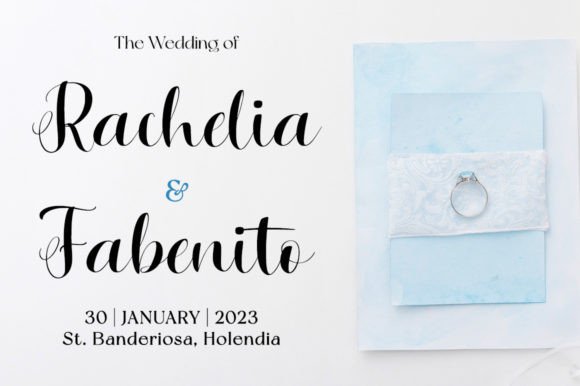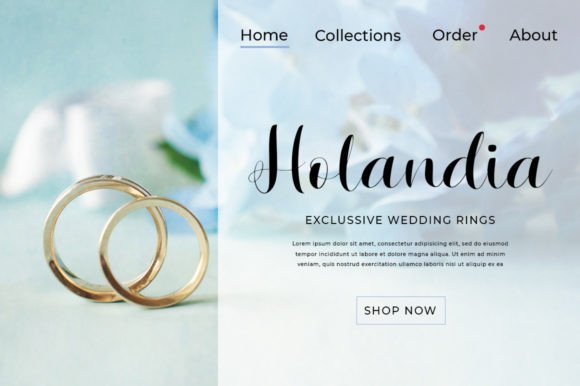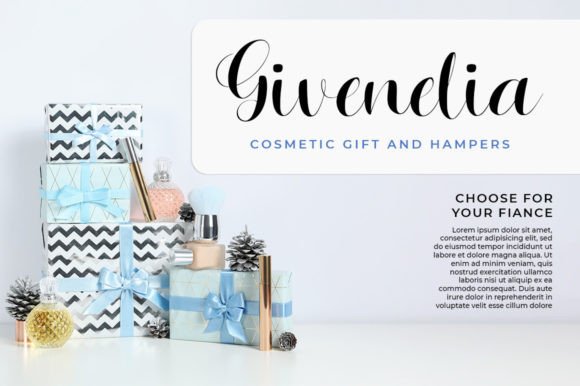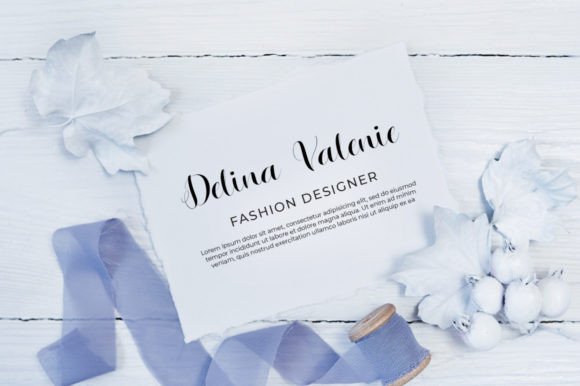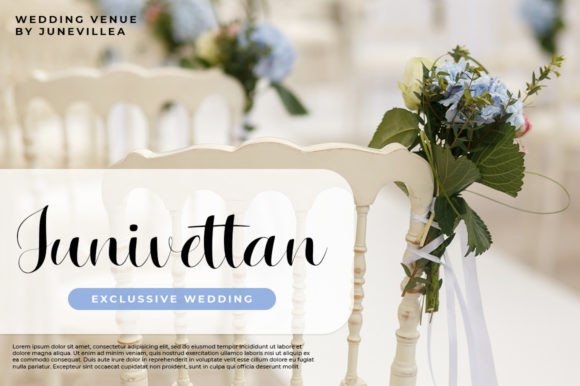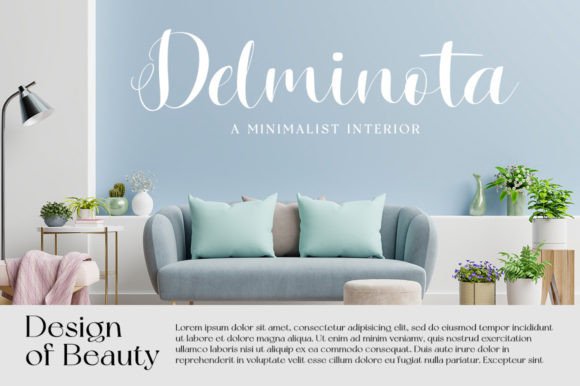
The Perfect Touch of Elegance: Unveiling the Filamonte Font
As a designer, have you ever found yourself staring at a blank page, searching for that one elusive element to make your project truly stand out? The perfect font can be the difference between a good design and a great one. It’s in these moments that we turn to the masters of typography, seeking inspiration and guidance to elevate our creations. And that’s exactly where the enchanting Filamonte Font comes in.
This romantic and sweet calligraphy typeface is designed to add a touch of luxury and sophistication to any design project. With characters that dance along the baseline, Filamonte Font is the perfect choice for designers looking to create a unique and captivating visual experience. Whether you’re crafting a wedding invitation, a luxury brand logo, or a special announcement, Filamonte Font is sure to leave a lasting impression.
What sets Filamonte Font apart is its versatility and elegance. Its beautiful curves and fluid lines make it an excellent choice for a wide range of design applications, from fine art to commercial projects. As a designer, you’ll appreciate the value of having a font that can elevate your work and leave a lasting impression on your audience.
Filamonte Font Key Features
- Font Family: Filamonte Font is a unique, hand-drawn script font, ideal for creative projects and designs.
- Size: The font family includes 6 weights, ranging from Light to Black, allowing for versatility in design applications.
- Unique Characteristics: The Filamonte Font features organic, flowing letterforms with subtle imperfections, giving it a handmade, artisanal feel.
- Language Support: The font supports a wide range of languages, including Latin-based alphabets and Cyrillic script, making it suitable for international designs.
Designer Review: Filamonte Font
Overall, I have mixed feelings about the Filamonte Font. It has some great qualities, but also some limitations that prevent it from being a top choice.
- ✨ Beautiful, elegant feel: The font has a unique, sophisticated design that makes it perfect for high-end branding and luxury products.
- ✨ Great for body text: Despite its elegant feel, the font is still readable at smaller sizes, making it suitable for body text in various contexts.
- ✨ Versatile: The font comes in a range of weights, from light to bold, making it easy to use in different design scenarios.
- ⚠️ Limited language support: The font seems to be designed primarily for Latin-based languages, which may limit its use in non-Latin scripts.
- ⚠️ Not ideal for digital use: The font’s design, while beautiful on paper, may not be suitable for digital use, such as in mobile apps or websites.
Overall, I think the Filamonte Font is a great choice for specific design projects, but it may not be the best fit for every situation. Its elegant feel and versatility make it a solid choice for high-end branding and luxury products, but its limited language support and digital usability may be a drawback for others.
Filamonte Font is ideal for:
- Headlines and titles.
- Branding and logos.
- Editorials and articles.
To get the most out of Filamonte Font, remember:
- Use it sparingly to create visual hierarchy.
- Pair it with a clean sans-serif font for body text.
- Experiment with different font sizes
Alternatives to Filamonte Font
Playfair Display is a luxurious, high-end font ideal for creating a sophisticated and elegant atmosphere. It is perfect for use in titles, headings, and any other elements where you want to convey a sense of luxury and refinement. It is a more elegant and refined alternative to Filamonte Font, which is more modern and sleek.
Merriweather is a classic serif font that is perfect for use in body text, headings, and titles. It is a great choice for designers who want to create a traditional and timeless look. It is a more traditional and conservative alternative to Filamonte Font, which is more modern and edgy.